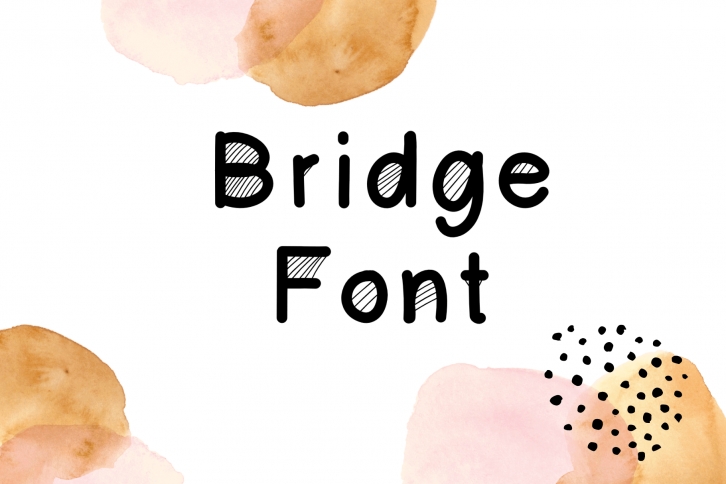
Bridge font is a hand written font which decorate with line and look like a bridge that good for beautiful content such as education, craft, construction and Horror. You can add them to make it great for creative projects.